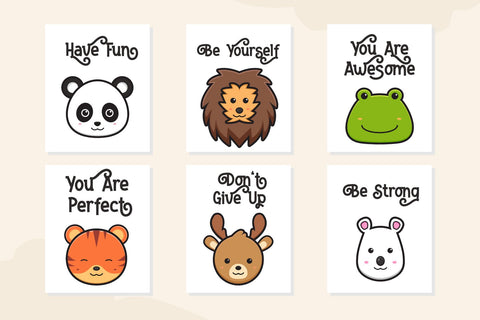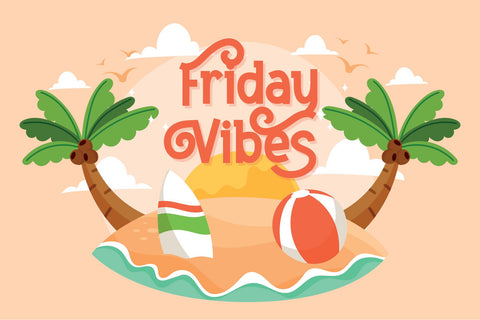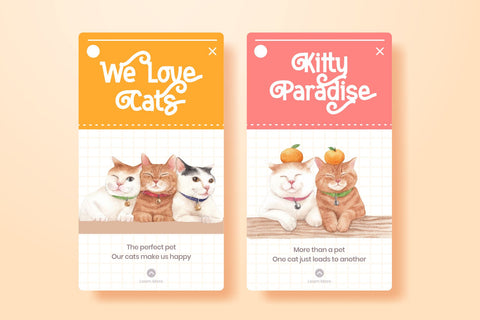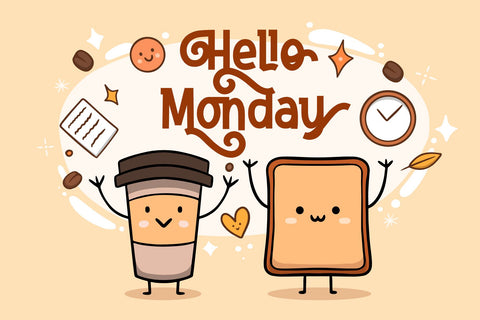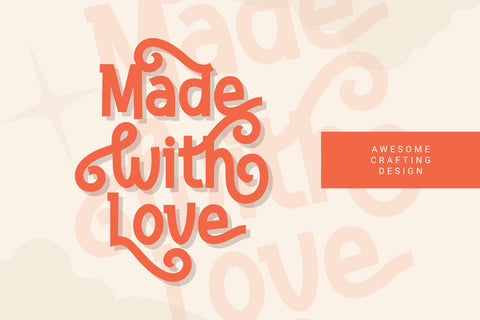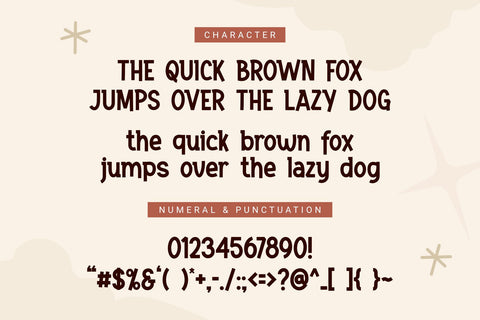
Bigcake - Playful Typeface
Halloween is coming. And it's not always about the spooky, creepy vibes. Can you smell the sweet scent? Meet our new font, Bigcake!
Bigcake - A Sweet Playful Typeface
Bigcake is one of the most fun, cheerful yet beautiful display fonts designed with sweet vibes. This font is well-suited for any headline title, logo branding, crafting design, and for every product, display mockup focused on sweet vibes.
The font also featured multilingual support so your brand will be globally acceptable.
+ Standard glyphs
+ Style Alternate
+ Ligature
+ Multilingual Accent
This Font Support language:
Afrikaans, Albanian, Asu, Basque, Bemba, Bena, Breton, Catalan, Chiga, Cornish, Danish, Dutch, English, Estonian, Faroese, Filipino, Finnish, French, Friulian, Galician, German, Gusii, Indonesian, Irish, Italian, Kabuverdianu, Kalenjin, Kinyarwanda, Luo, Luxembourgish, Luyia, Machame, Makhuwa, Meetto, Makonde, Malagasy, Manx, Morisyen, North, Ndebele, Norwegian, Bokmål, Norwegian, Nynorsk, Nyankole, Oromo, Portuguese, Quechua, Romansh, Rombo, Rundi, Rwa, Samburu, Sango, Sangu, Scottish, Gaelic, Sena, Shambala, Shona, Soga, Somali, Spanish, Swahili, Swedish, Swiss, German, Taita, Teso, Uzbek (Latin), Volapük, Vunjo, Zulu.